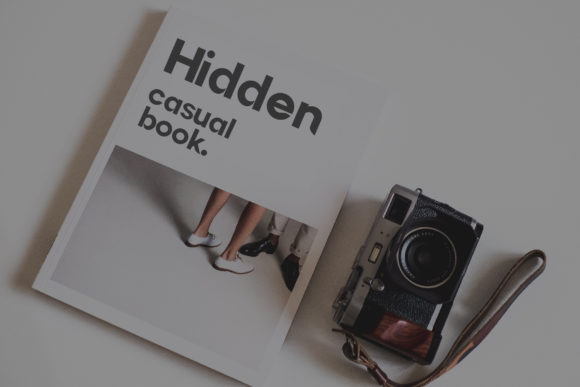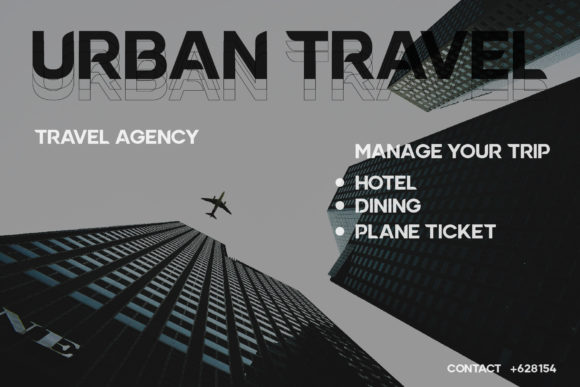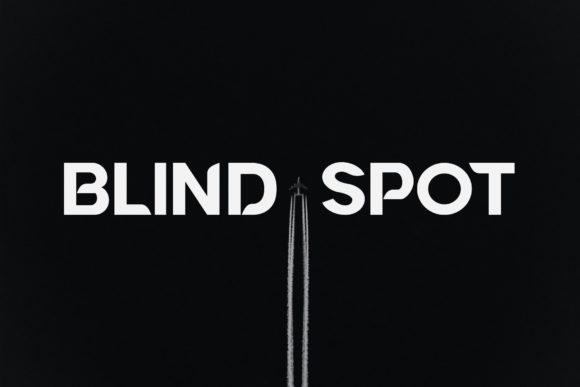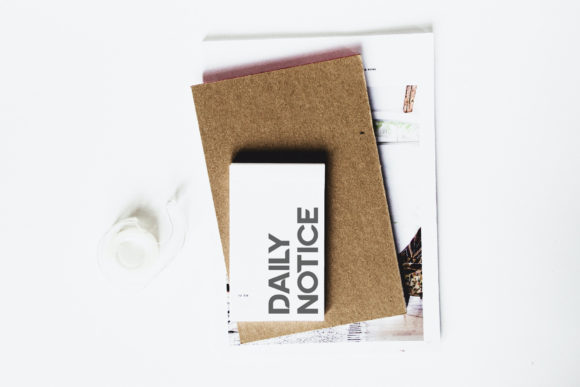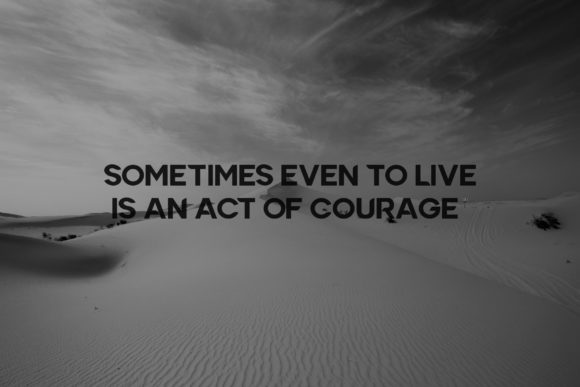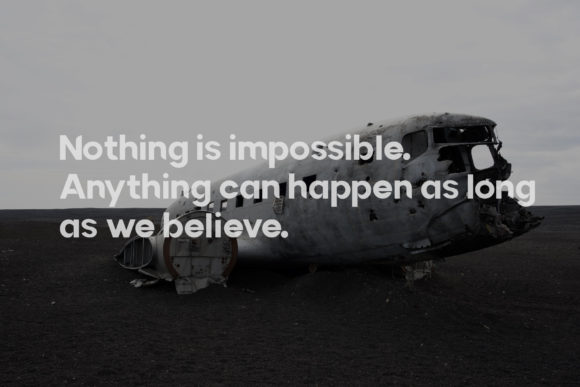
Introducing Airplane Font: The Bold and Authentic Display Font for Your Designs
When it comes to creating visually stunning designs, typography plays a crucial role. A font can make or break the aesthetic of a project, which is why designers and crafters are always on the lookout for unique and impactful typefaces. If you’re looking for a font that exudes strength and simplicity, look no further than Airplane Font. In this article, we’ll dive into the world of Airplane Font, exploring its features, benefits, and uses.
What is Airplane Font?
Airplane Font is a bold and authentic display font designed to add a fierce and strong touch to your designs. Its simple lettering makes it a versatile typeface that can be used in a variety of projects, from posters and flyers to logos and branding materials. The font’s clean lines and rugged feel give it an edgy charm that’s sure to grab attention.
Key Features of Airplane Font
• Bold and Authentic: Airplane Font is designed to make a statement. Its bold and authentic style ensures that your text stands out from the crowd.
• Simple Lettering: The font’s simple lettering makes it easy to read and understand, even at small sizes.
• Versatile: Airplane Font can be used in a variety of designs, from modern and sleek to rugged and outdoorsy.
• High-Impact: The font’s strong and fierce feel makes it perfect for designs that require a bold statement.
Benefits of Using Airplane Font
So, why should you choose Airplane Font for your next design project? Here are just a few benefits of using this powerful typeface:
• Adds Visual Interest: Airplane Font’s bold and authentic style adds visual interest to any design, making it perfect for grabbing attention.
• Enhances Branding: The font’s strong and fierce feel can help enhance your branding and create a lasting impression on your audience.
• Easy to Read: Despite its bold style, Airplane Font is easy to read, making it perfect for designs that require a clear and concise message.
• Customizable: Airplane Font can be customized to fit your design needs, making it a versatile choice for any project.
Uses of Airplane Font
Airplane Font is a versatile typeface that can be used in a variety of designs, including:
• Posters and Flyers: The font’s bold and authentic style makes it perfect for posters and flyers that require attention-grabbing headlines.
• Logos and Branding: Airplane Font’s strong and fierce feel makes it a great choice for logos and branding materials that require a bold statement.
• Signage and Displays: The font’s clear and easy-to-read style makes it perfect for signage and displays that require a concise message.
• Digital Media: Airplane Font can be used in digital media, such as social media graphics, videos, and presentations, to add a bold and authentic touch.
Font Name Airplane Font
Author The1stWinner
In conclusion, Airplane Font is a bold and authentic display font that’s perfect for designers and crafters looking to add a fierce and strong touch to their designs. Its simple lettering, versatile style, and high-impact feel make it a great choice for a variety of projects. Whether you’re creating posters, logos, or digital media, Airplane Font is sure to make a statement. So, why not give it a try and see how it can elevate your designs?